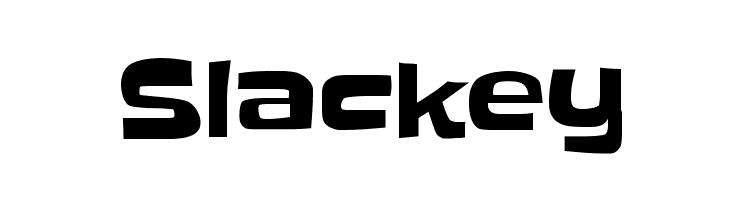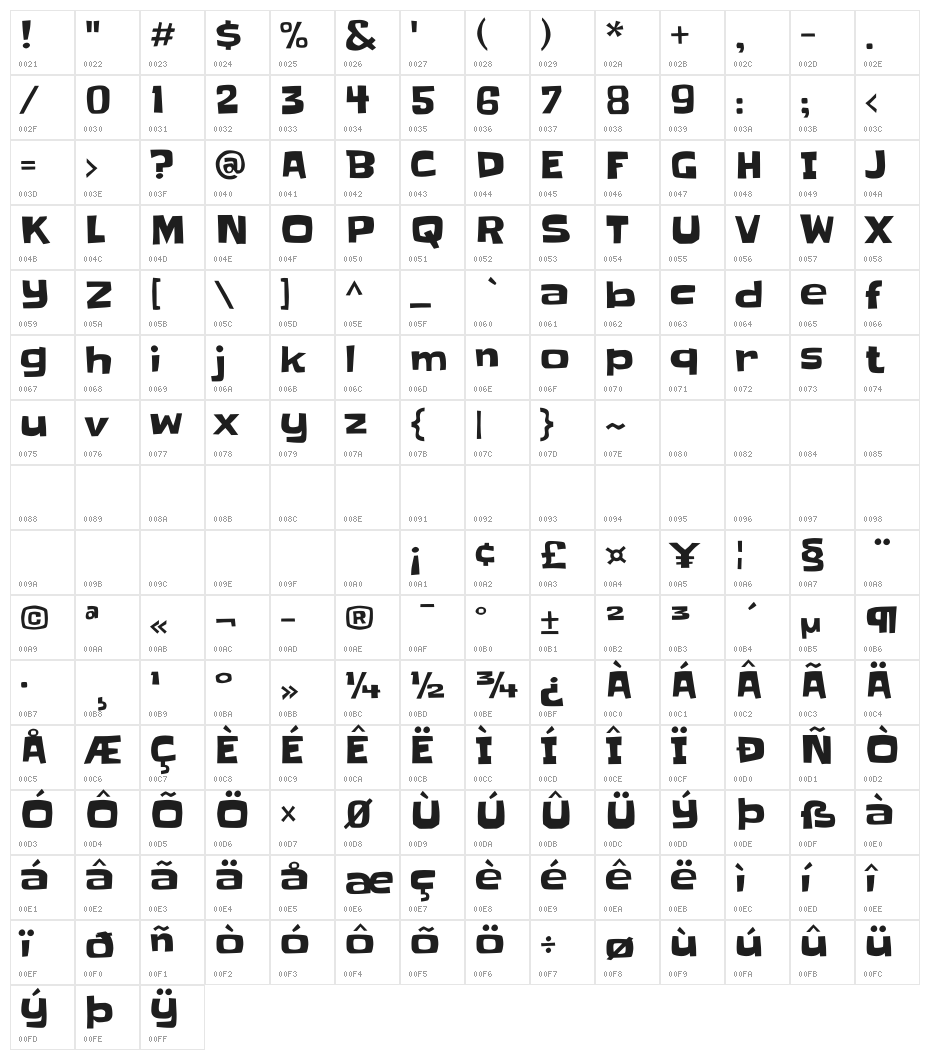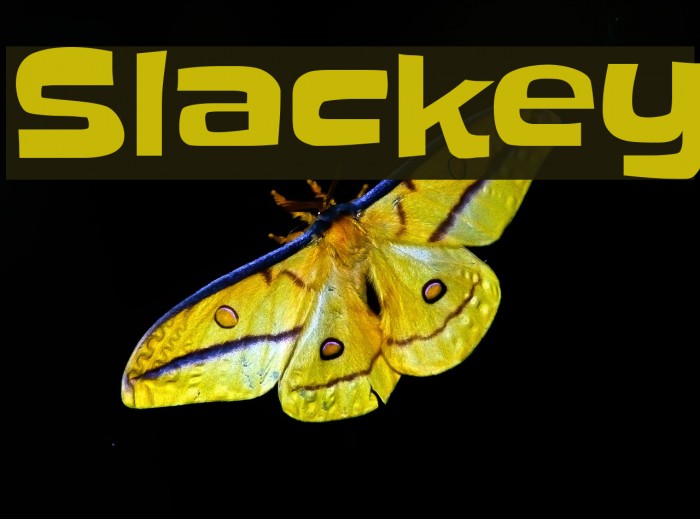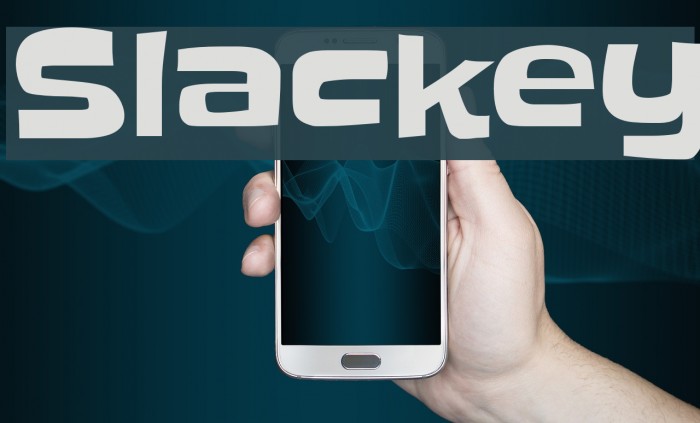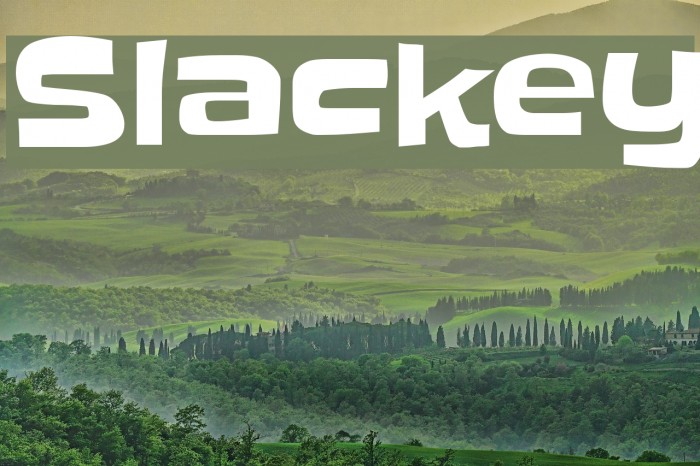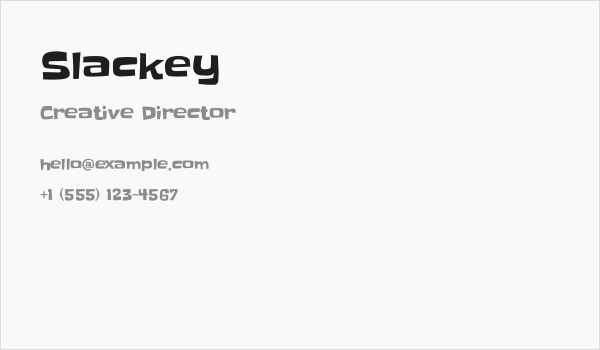
Slackey Font
Slackey Description
This font features a playful and bold design, characterized by its irregular and slightly distorted letterforms. The uppercase letters exhibit a quirky, cartoon-like style with exaggerated curves and angles, giving them a dynamic and energetic appearance. The lowercase letters maintain this whimsical aesthetic, providing a cohesive look across the typeface. The numerals and special characters follow the same playful theme, making the font suitable for creative and informal applications. Its unique style is eye-catching and adds a sense of fun to any project.
Proposed ProjectsIdeal for children's books, comic strips, playful branding, and creative posters.